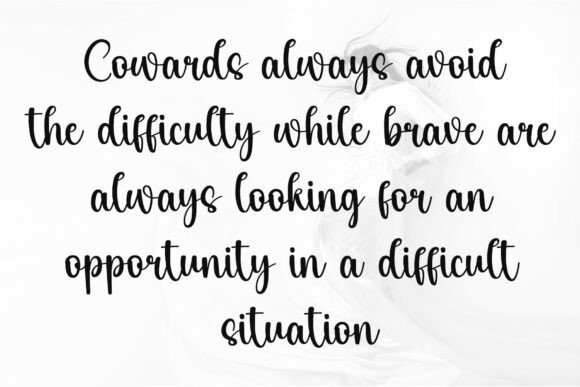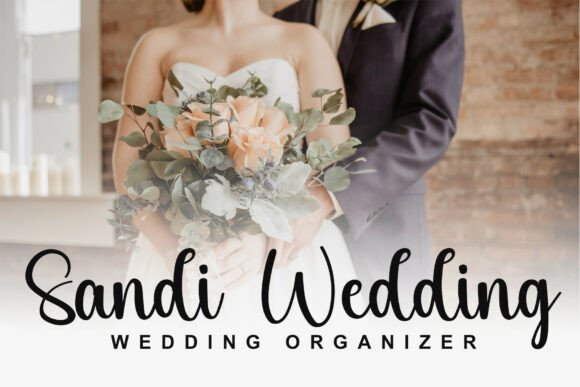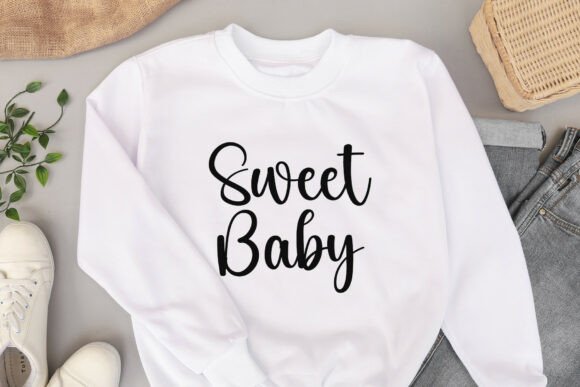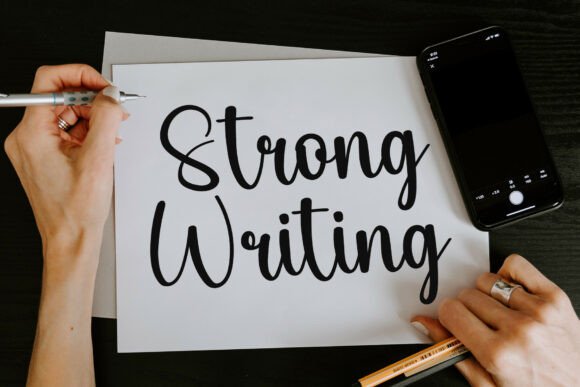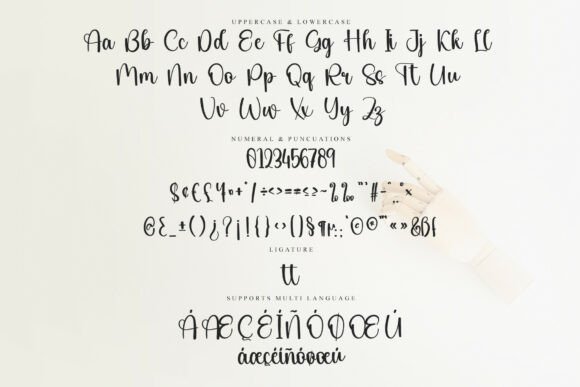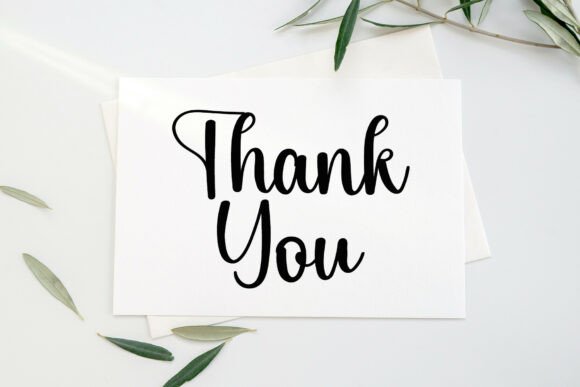
Introduction to Gastonia Calligraphy Font
Gastonia Calligraphy is a stylish and modern handwritten, suitable for a wide spectrum of applications.
From greeting cards to headlines, branding and packaging, this font will guarantee a happiness touch to each of your creations This font is PUA encoded which means you can access all of the amazing glyphs and ligatures with ease.
Gastonia Calligraphy Font offers exceptional quality and versatility, making it a valuable addition to your design toolkit. Whether you’re creating for personal projects or commercial use, Gastonia Calligraphy Font delivers professional results.